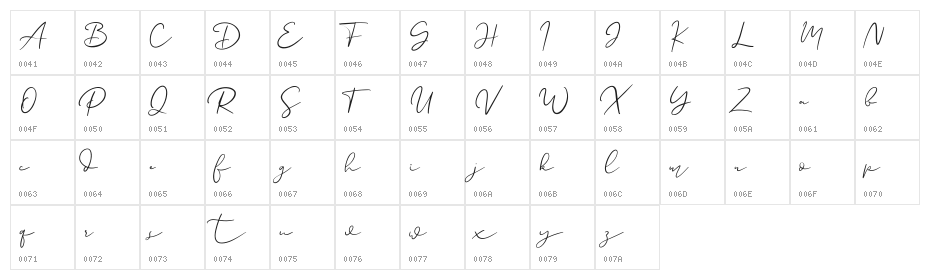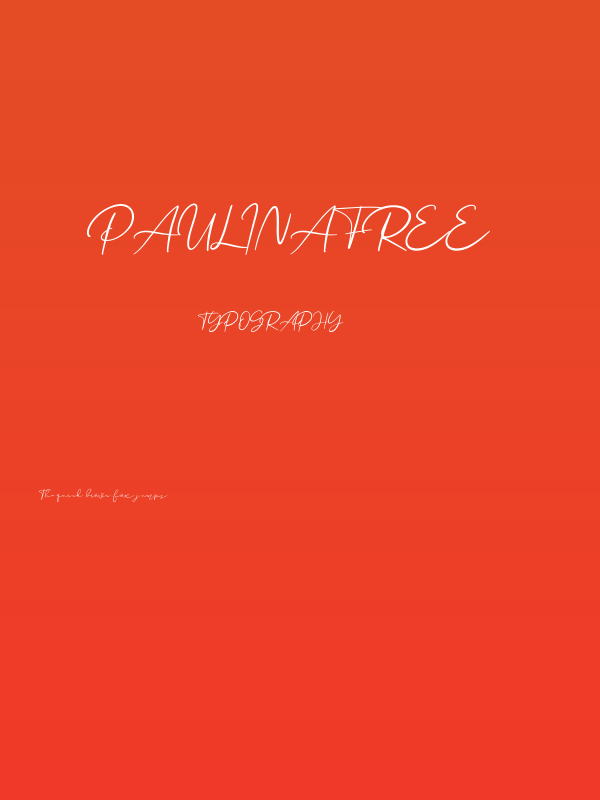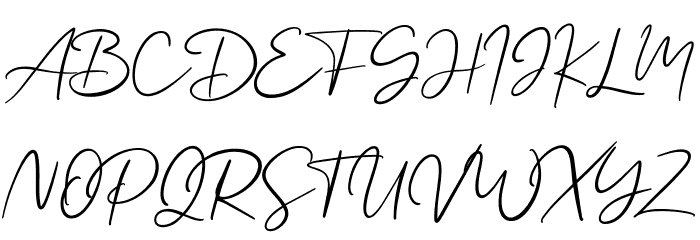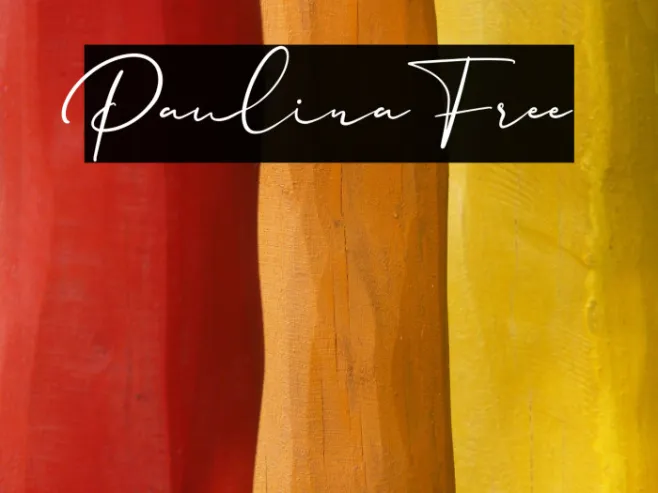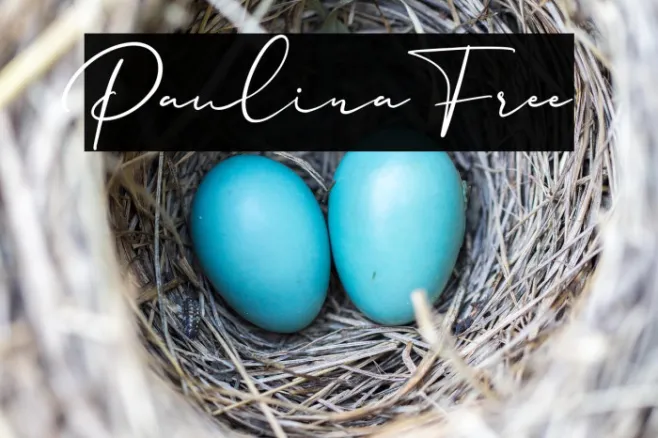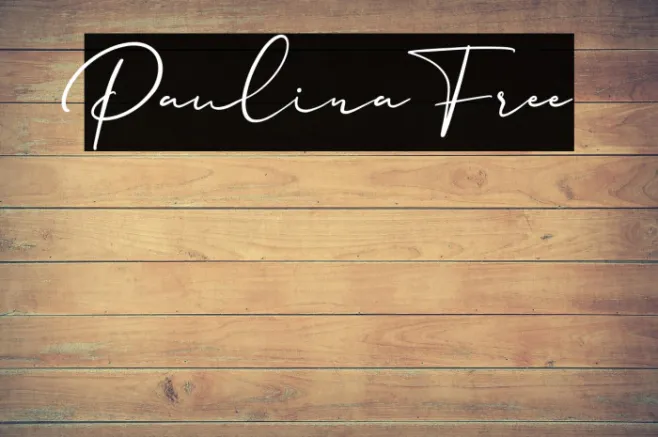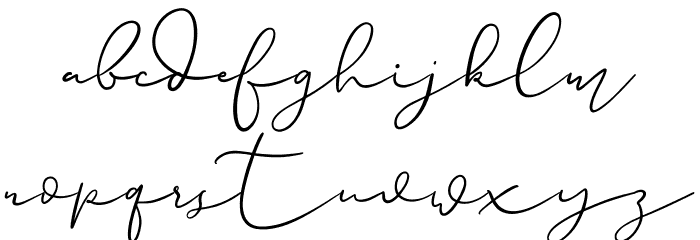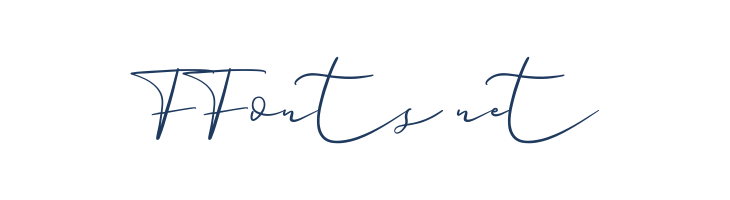
Paulina Free Font
This font features an elegant and flowing script style, characterized by its smooth, continuous strokes and graceful curves. The letters are interconnected, giving it a cohesive and fluid appearance. The uppercase letters are slightly more ornate, with some featuring loops and flourishes, while the lowercase letters maintain a consistent and harmonious flow. The overall look is sophisticated and stylish, making it ideal for formal invitations, branding, and decorative purposes. The font maintains a delicate balance between readability and artistic expression, with each character crafted to enhance its aesthetic appeal.
| Proposed Projects | Ideal for wedding invitations, branding, logo design, and decorative projects. |